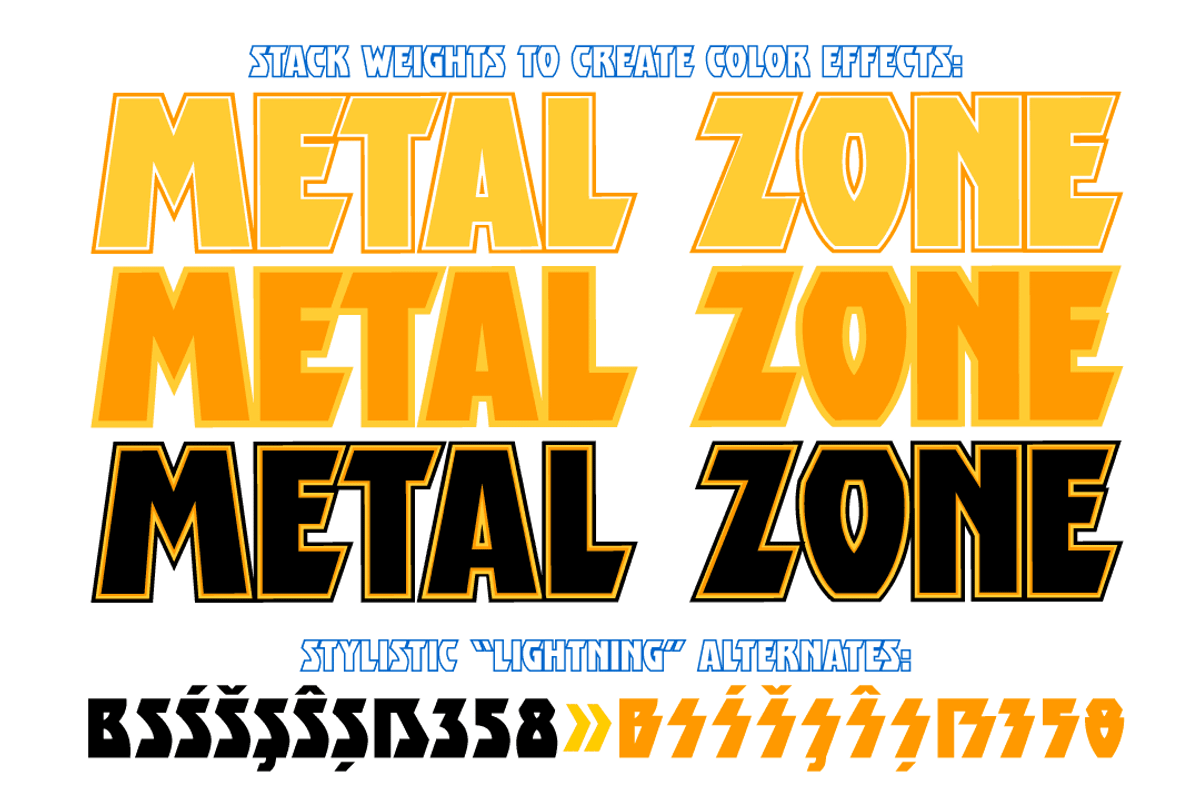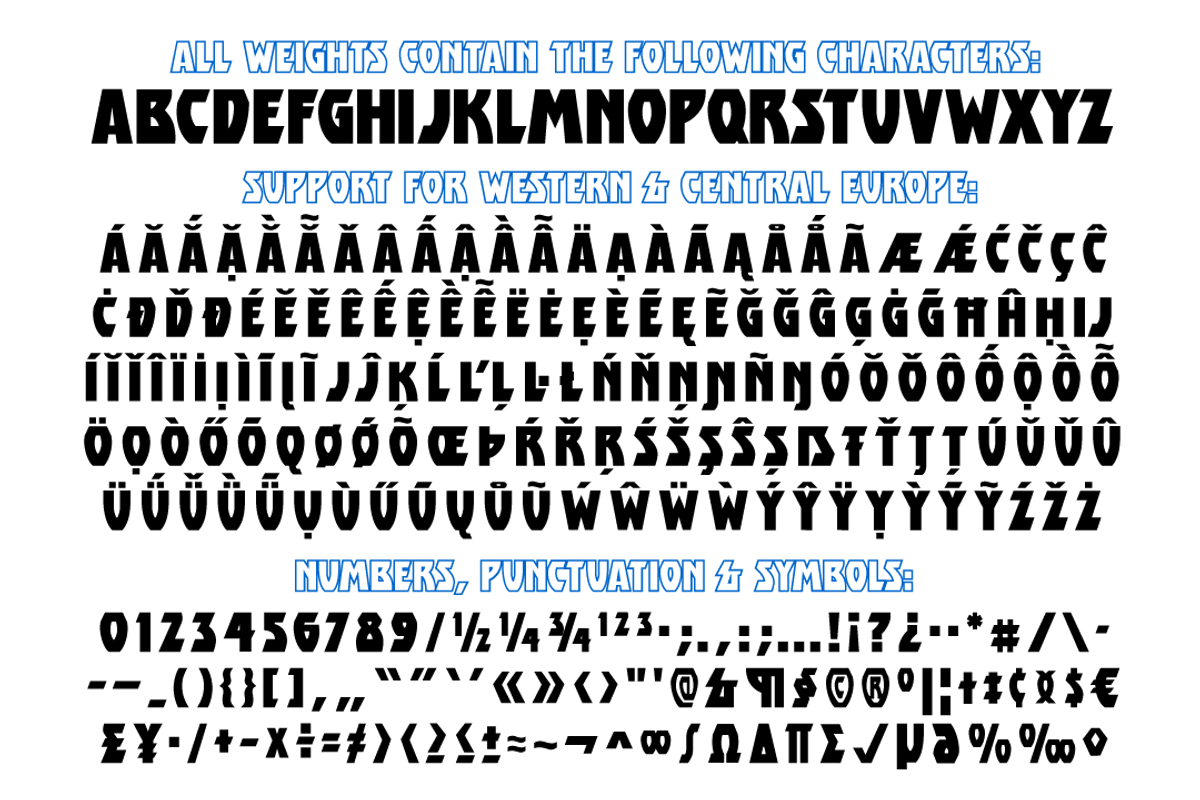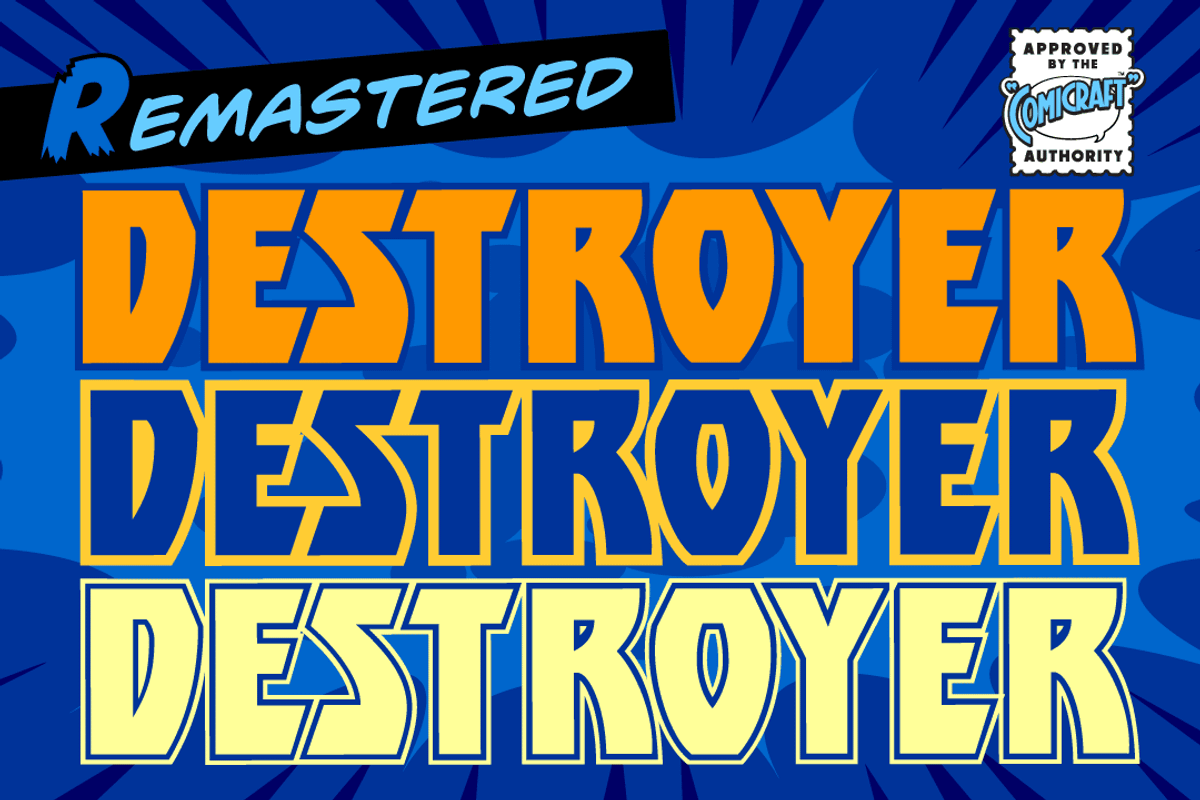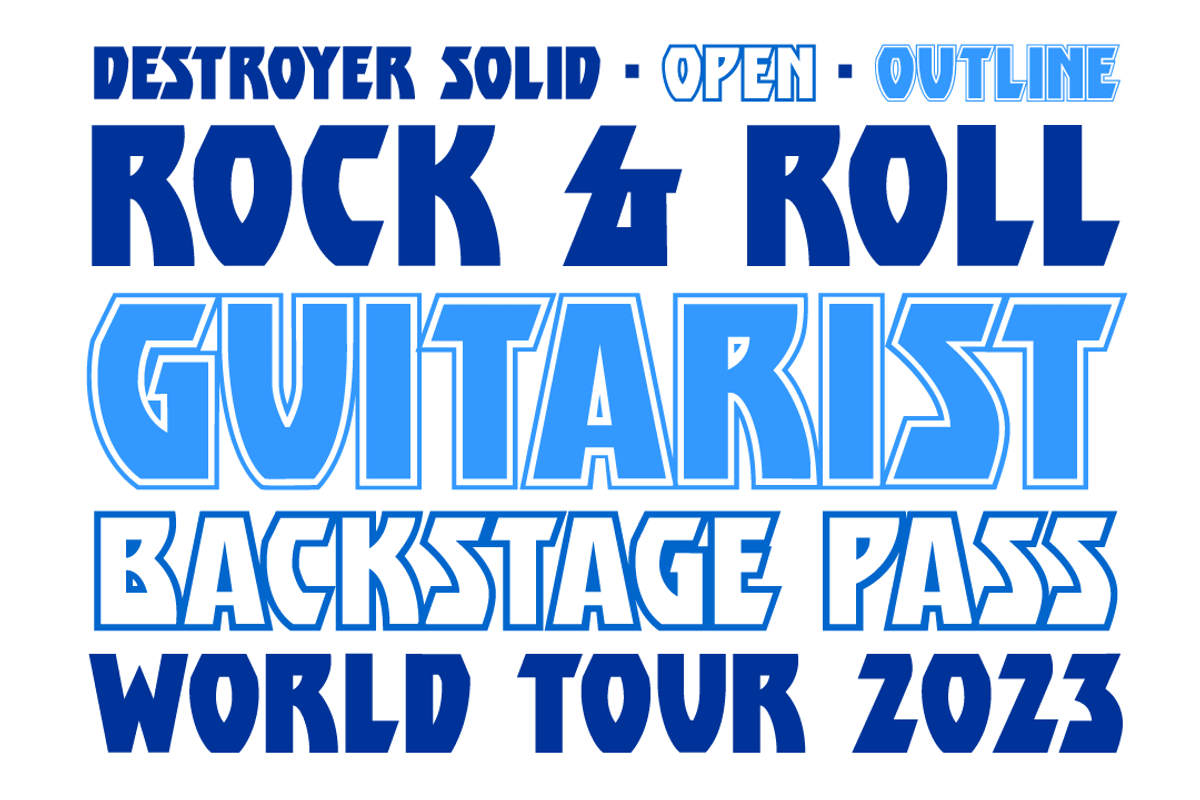
Destroyer - a heavy rock'n'roll font
You wanted the best and you got the best - the hottest fonts in the world jumping off the pages of the hottest comic in the world - KISS: PSYCHO CIRCUS. Now you can all journey into the void with these three matching fonts handcrafted by headbangin' JG Roshell. Lick it up!
Features “lightning” versions as stylistic alternates, and Western & Central European language support